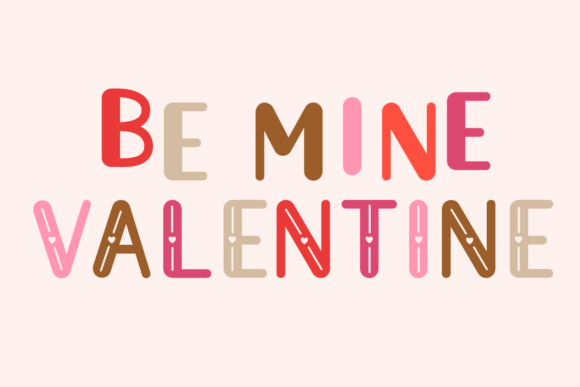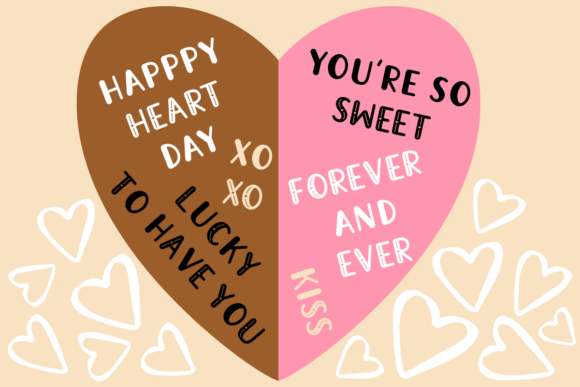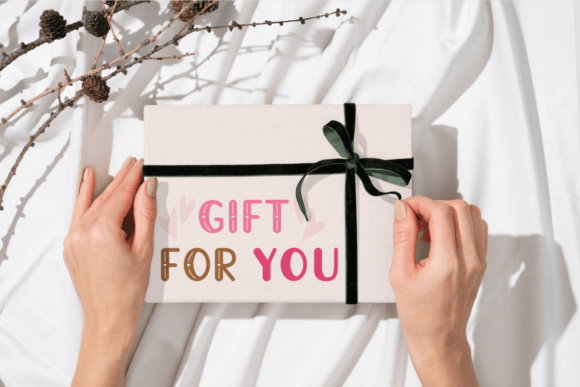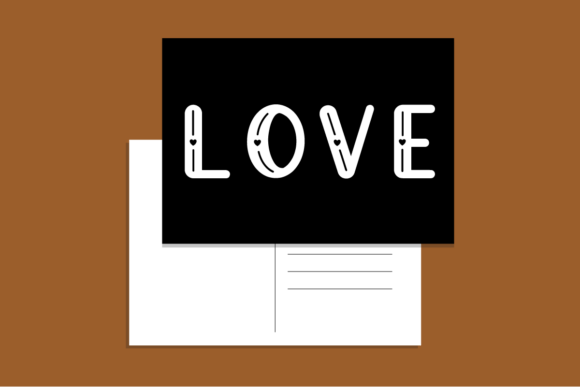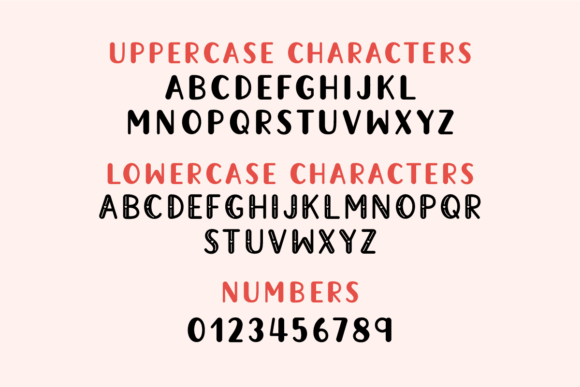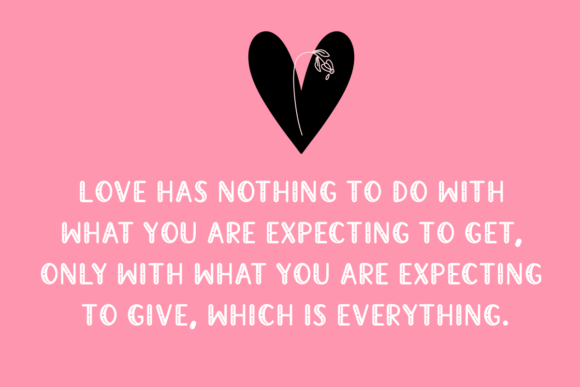
Introducing Heart Bloom Font: The Perfect Addition to Your Design Projects
Are you looking for a font that can add a touch of love and playfulness to your designs? Look no further than Heart Bloom Font! This adorable font is perfect for a wide range of projects, from Valentine’s Day designs to everyday crafting and decorating.
What is Heart Bloom Font?
Heart Bloom Font is a cute and charming font that features heart-shaped letters and characters. It’s a unique and eye-catching font that’s sure to make your designs stand out. With its playful and whimsical feel, Heart Bloom Font is perfect for designers and crafters who want to add a touch of personality to their work.
Uses for Heart Bloom Font
Heart Bloom Font is incredibly versatile and can be used for a wide range of projects, including:
• Valentine’s Day designs: Create romantic and playful Valentine’s Day cards, invitations, and decorations with Heart Bloom Font.
• T-shirt designs: Add a touch of love and whimsy to your t-shirt designs with this adorable font.
• Invitation cards: Use Heart Bloom Font to create beautiful and playful invitation cards for parties, weddings, and other special occasions.
• Mugs and water bottles: Add a personal touch to your mugs and water bottles with Heart Bloom Font.
• Stickers and decals: Use Heart Bloom Font to create cute and playful stickers and decals for your laptops, water bottles, and other items.
• Playful quotes: Create inspiring and playful quotes with Heart Bloom Font to decorate your walls and add a touch of personality to your space.
• Posters and flyers: Use Heart Bloom Font to create eye-catching posters and flyers for events, promotions, and more.
• Logos and branding: Add a touch of whimsy and personality to your logos and branding with Heart Bloom Font.
• Greeting cards: Create beautiful and playful greeting cards for birthdays, holidays, and other special occasions.
• Packaging: Use Heart Bloom Font to add a personal touch to your packaging and make your products stand out.
• Illustrations: Decorate your illustrations with Heart Bloom Font and add a touch of playfulness and whimsy.
Why Choose Heart Bloom Font?
There are many reasons why Heart Bloom Font is a great choice for designers and crafters. Here are just a few:
• Unique and eye-catching: Heart Bloom Font is a one-of-a-kind font that’s sure to make your designs stand out.
• Playful and whimsical: This font has a playful and whimsical feel that’s perfect for designers and crafters who want to add a touch of personality to their work.
• Versatile: Heart Bloom Font can be used for a wide range of projects, from Valentine’s Day designs to everyday crafting and decorating.
Tips for Using Heart Bloom Font
Here are a few tips for using Heart Bloom Font in your designs:
• Pair with other fonts: Heart Bloom Font looks great when paired with other fonts, such as sans-serif fonts or script fonts.
• Use in combination with images: This font looks great when used in combination with images, such as illustrations or photographs.
• Experiment with colors: Heart Bloom Font looks great in a variety of colors, from bright and bold to soft and pastel.
• Use for headings and titles: This font is perfect for headings and titles, and can add a touch of personality to your designs.
Heart Bloom Font is a unique and eye-catching font that’s perfect for designers and crafters who want to add a touch of love and playfulness to their designs. With its playful and whimsical feel, this font is sure to make your designs stand out. Whether you’re creating Valentine’s Day designs, t-shirt designs, or everyday crafting and decorating, Heart Bloom Font is a great choice. So why not give it a try and see what amazing designs you can create?